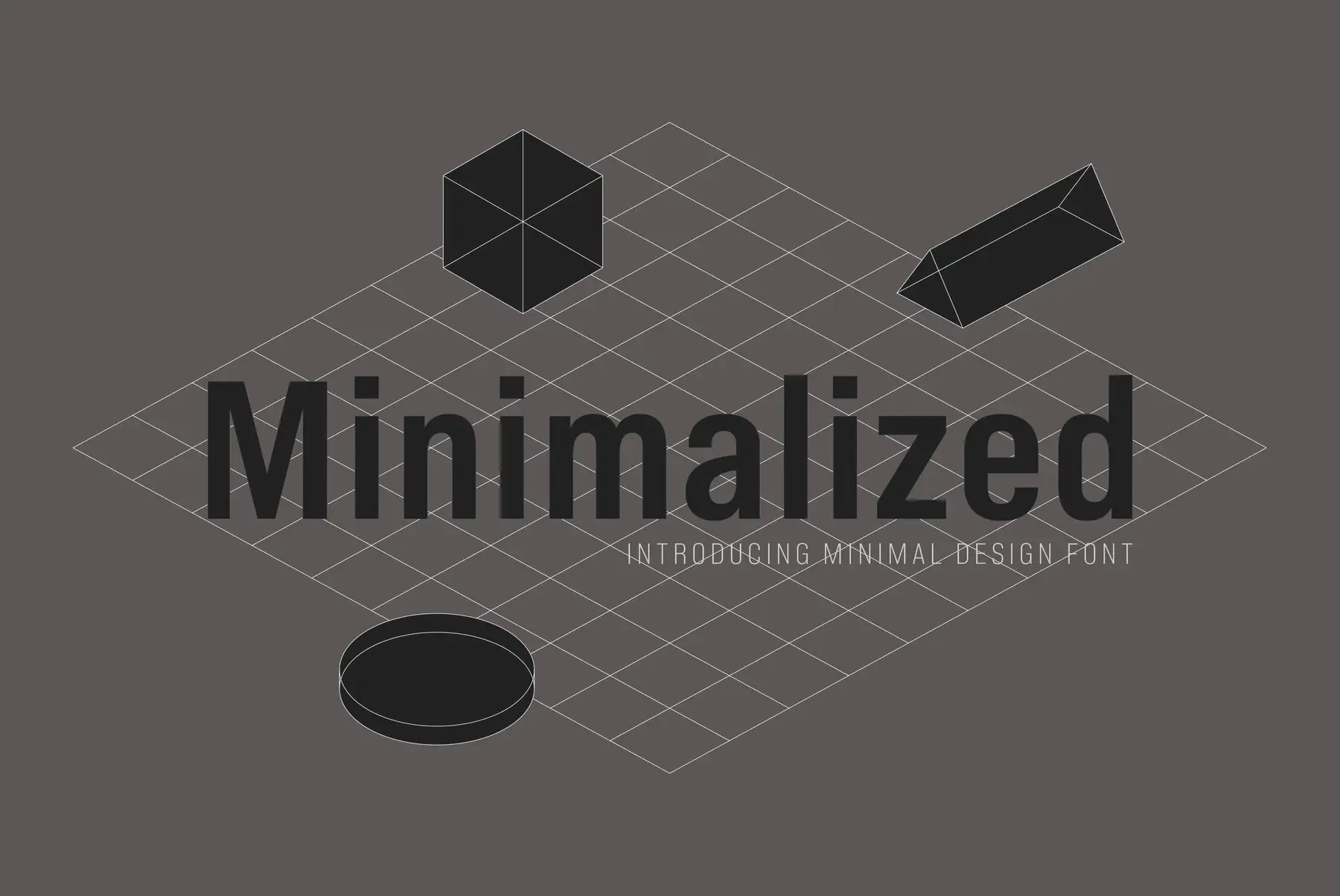
Minimalized Font
The period spanning the late 1980s through the early 2000s marked a significant evolution in graphic design, characterized by a push towards simplicity and neutrality. A hallmark of this era was the deliberate elimination of ornamentation, favoring an industrial aesthetic influenced by the burgeoning presence of computers and the internet. Designers diverted from traditional craftsmanship, embracing grid systems and modular structures. At first glance, these designs might have seemed rudimentary, yet they captured a contemporary freshness that resonated with the modern landscape. By the late 2000s, the design community began to appreciate organic and intuitive aesthetics once more, a trend that endures today. This typeface pays homage to the nascent era of digital design and the internet, evoking the spirit of the 1990s—a decade pivotal to the designer's formative years in the field. The type family offers eight distinct weights, each accompanied by a matching italic, and accommodates an extensive array of Latin-based languages.Minimalized - The 1990s Typeface Revival
In the early 2000's, Ryoichi Tsunekawa was fascinated by the relations between modernist design and Bauhaus style while studying architecture at Nagoya University. He eventually changed his focus to type-design, establishing an extensive font collection that is now available on YouWorkForThem.The desig...